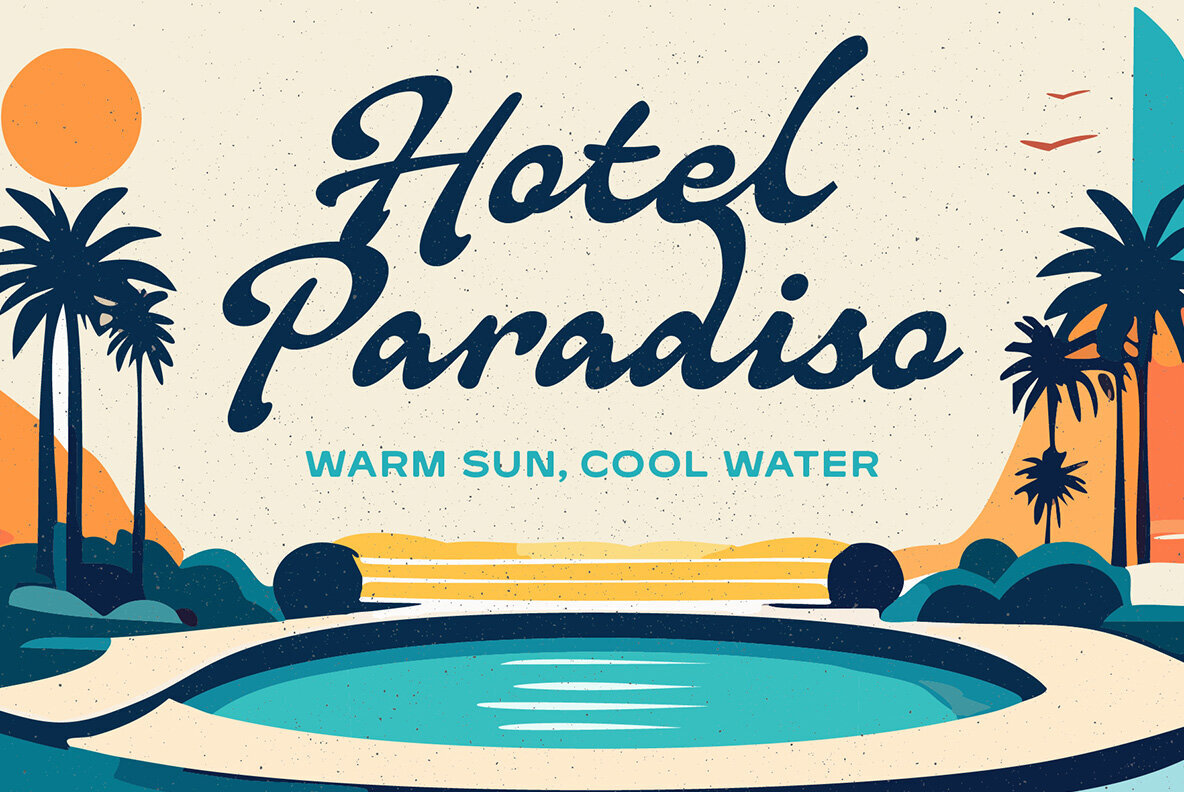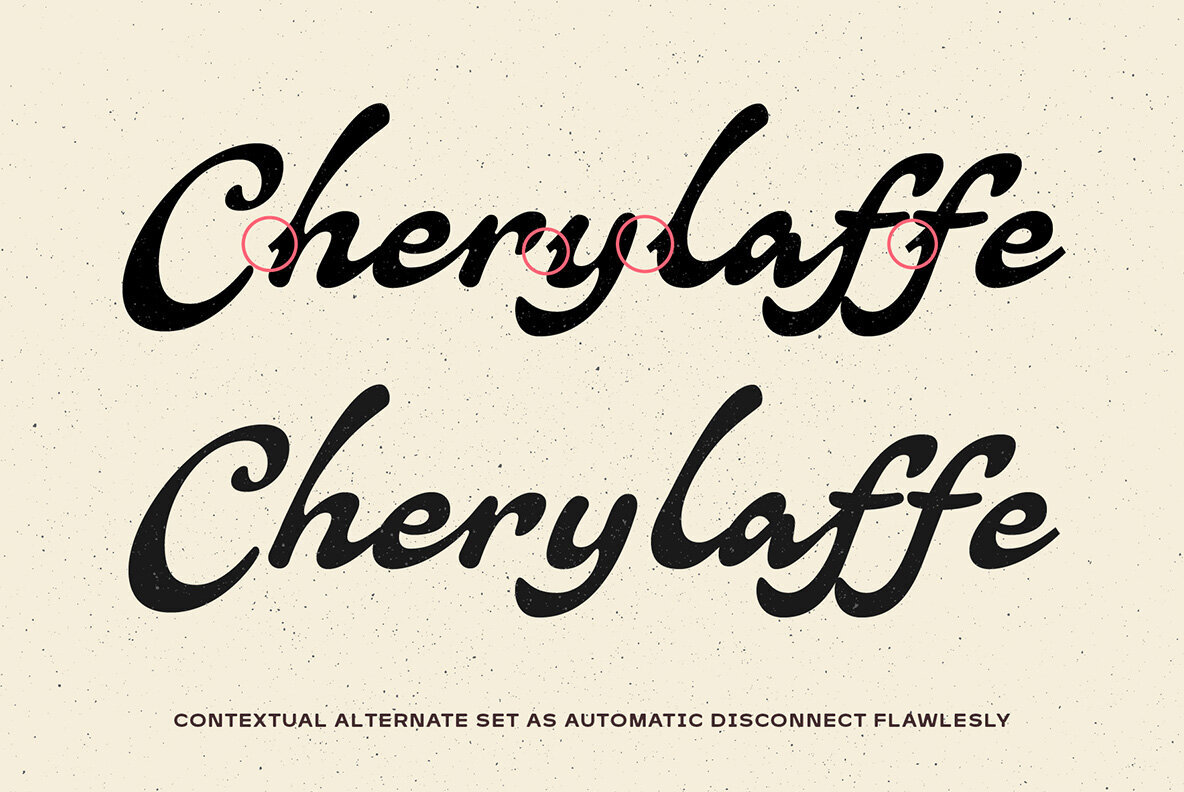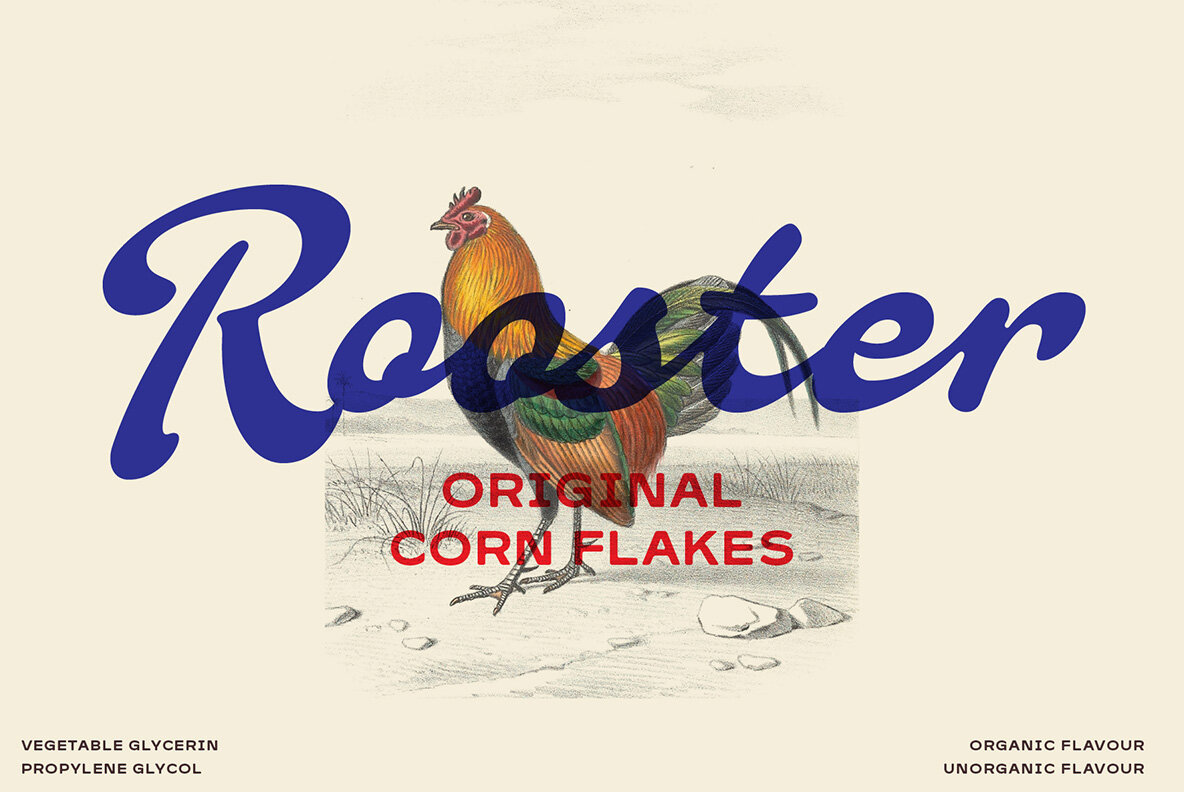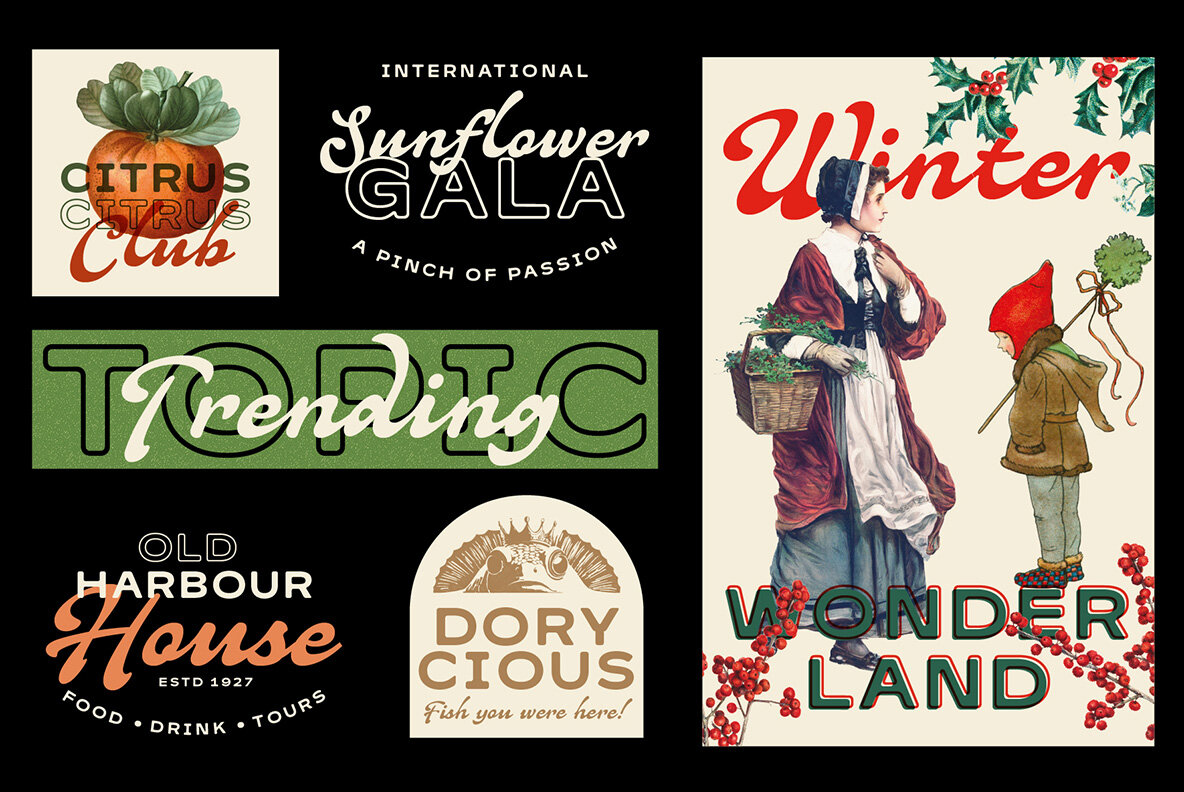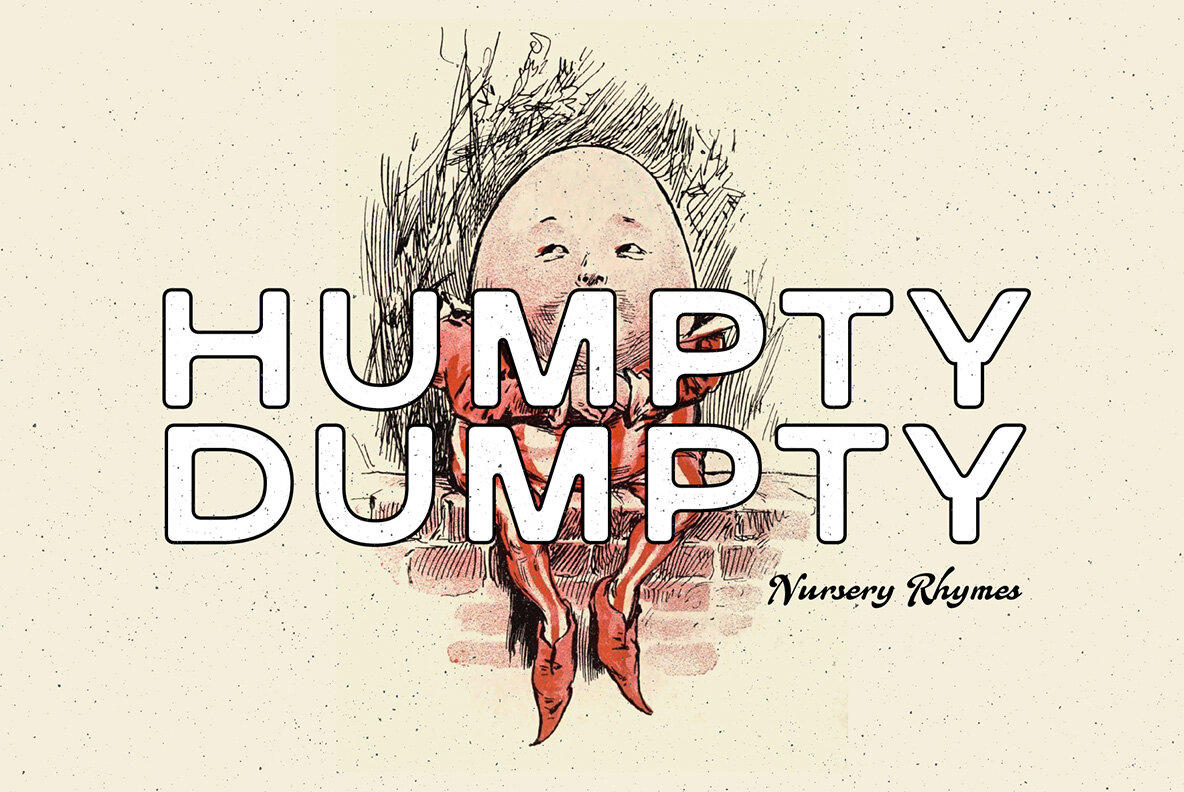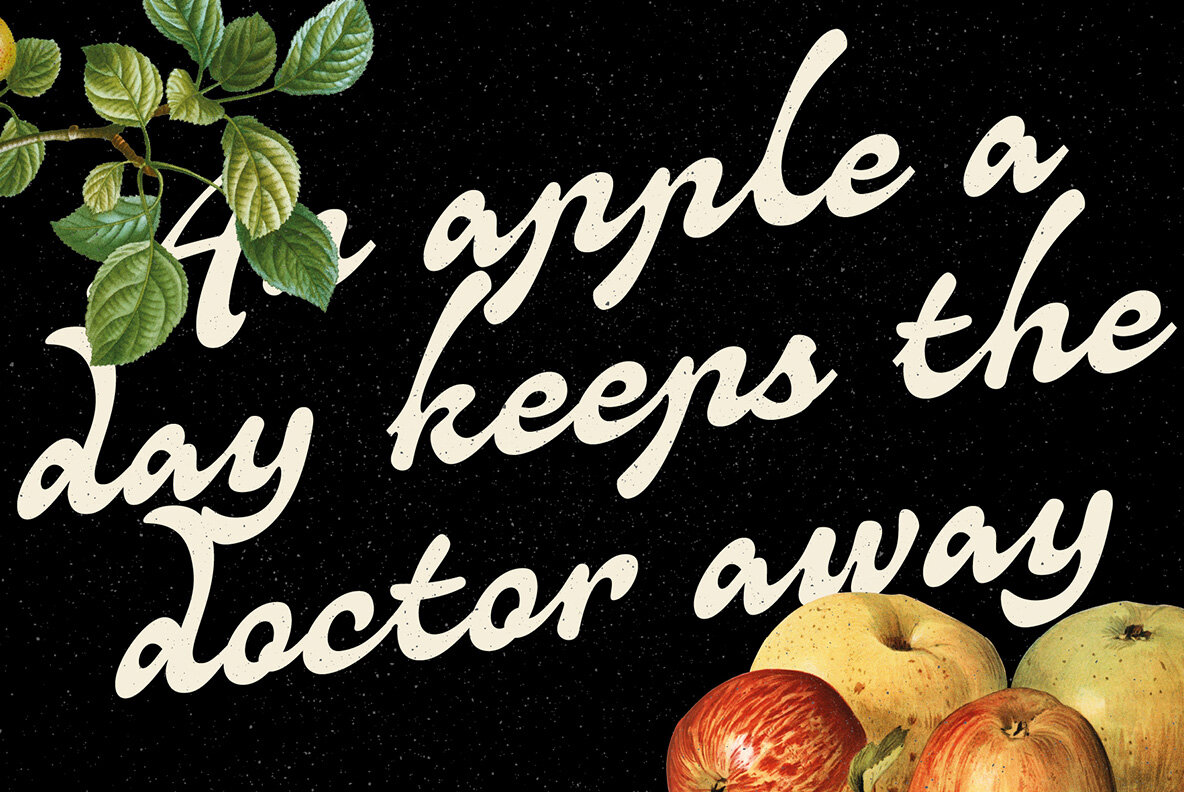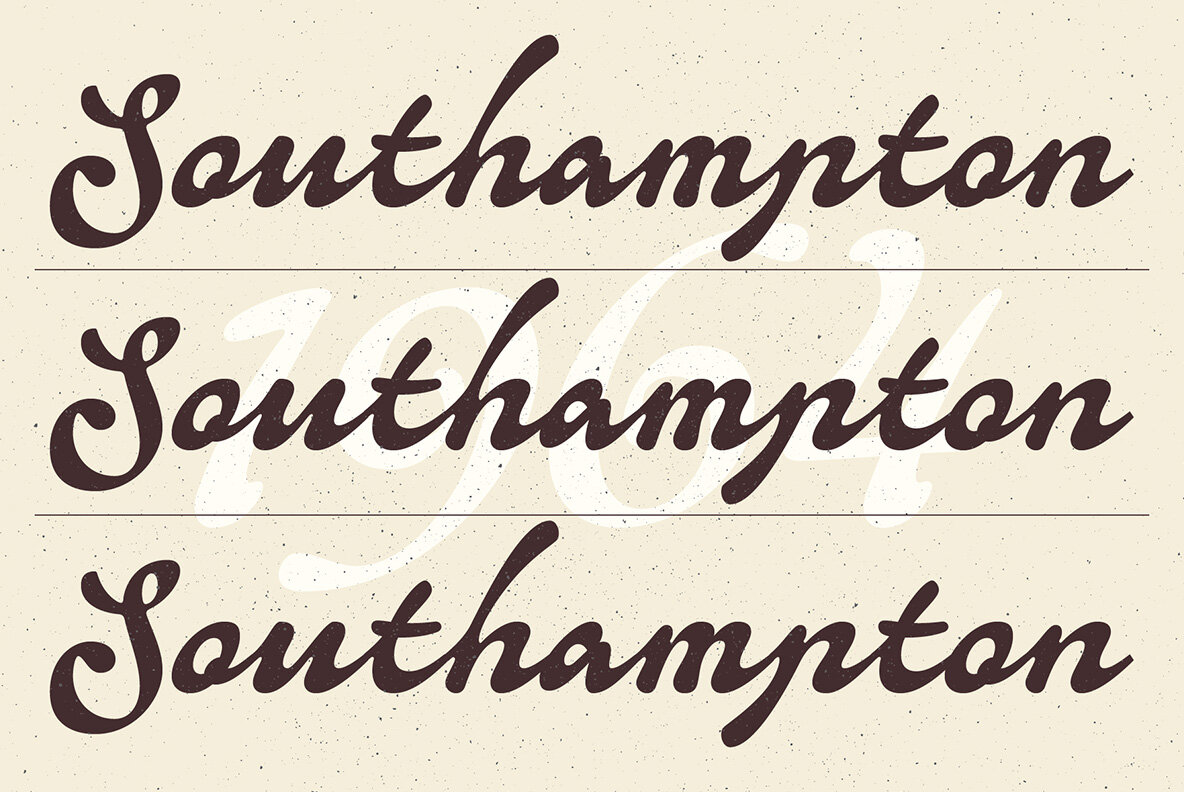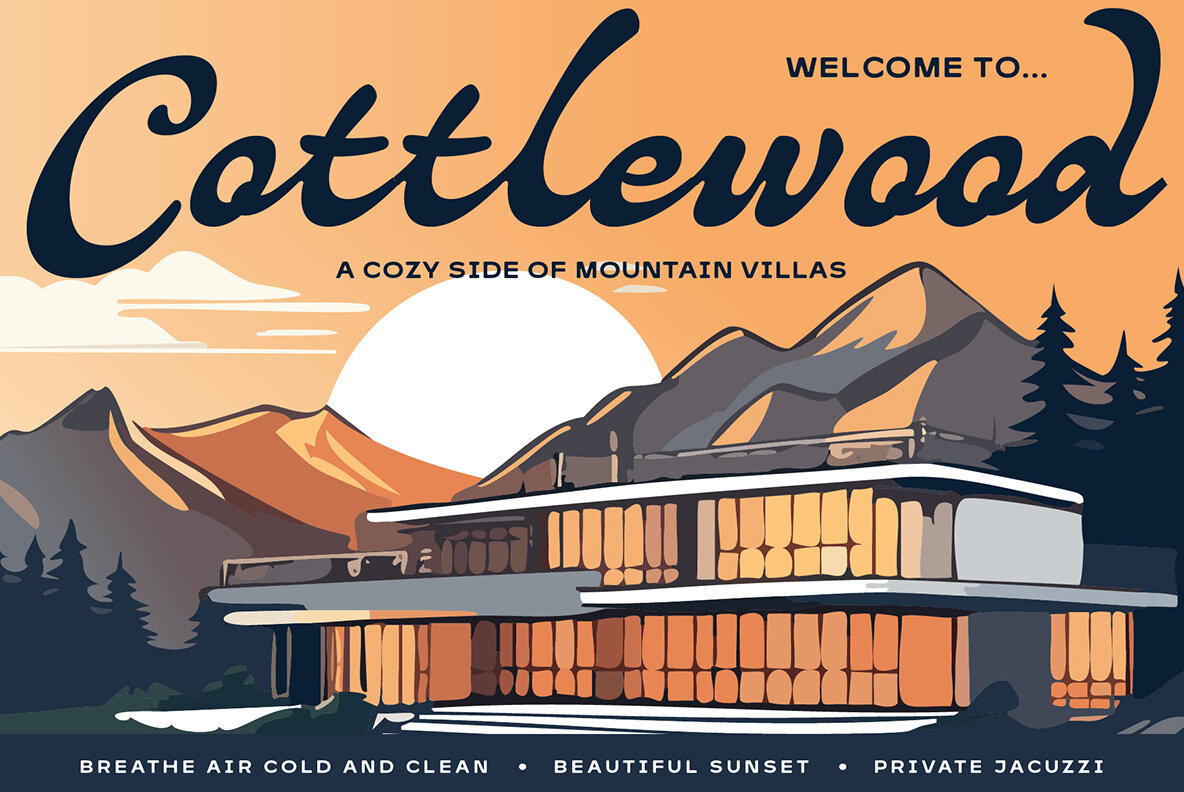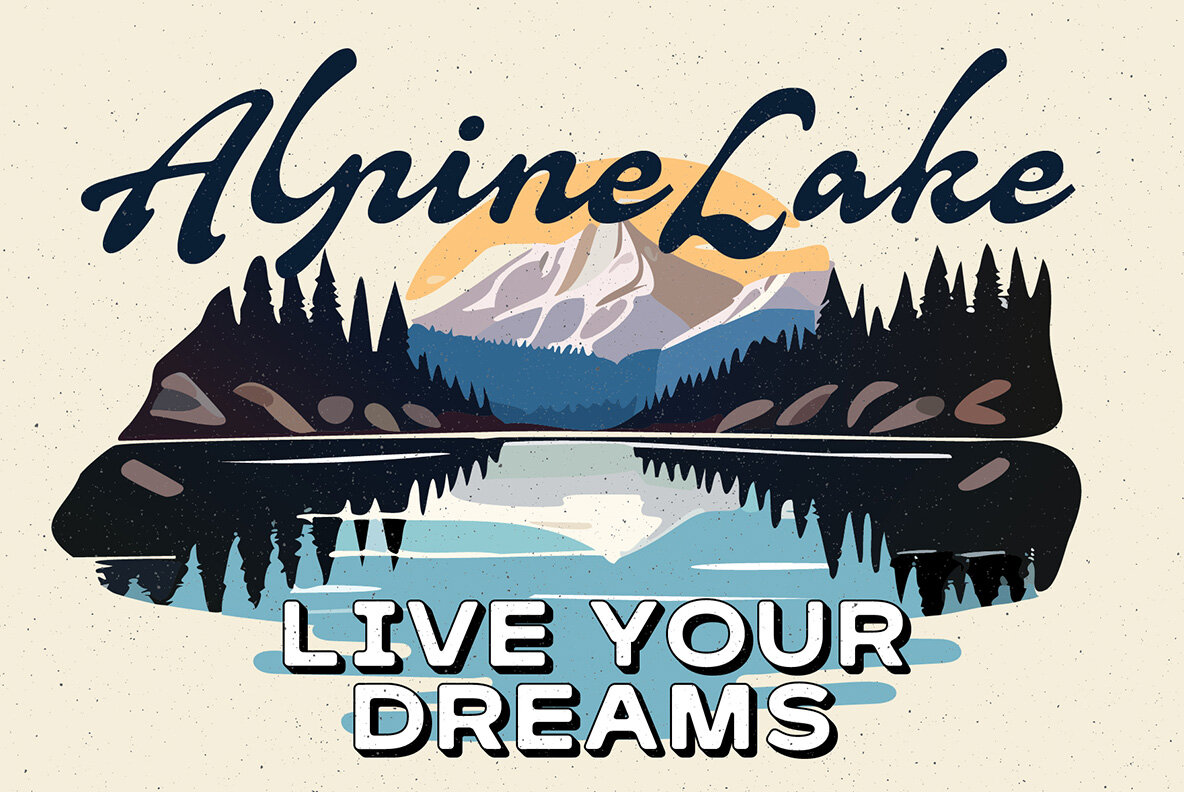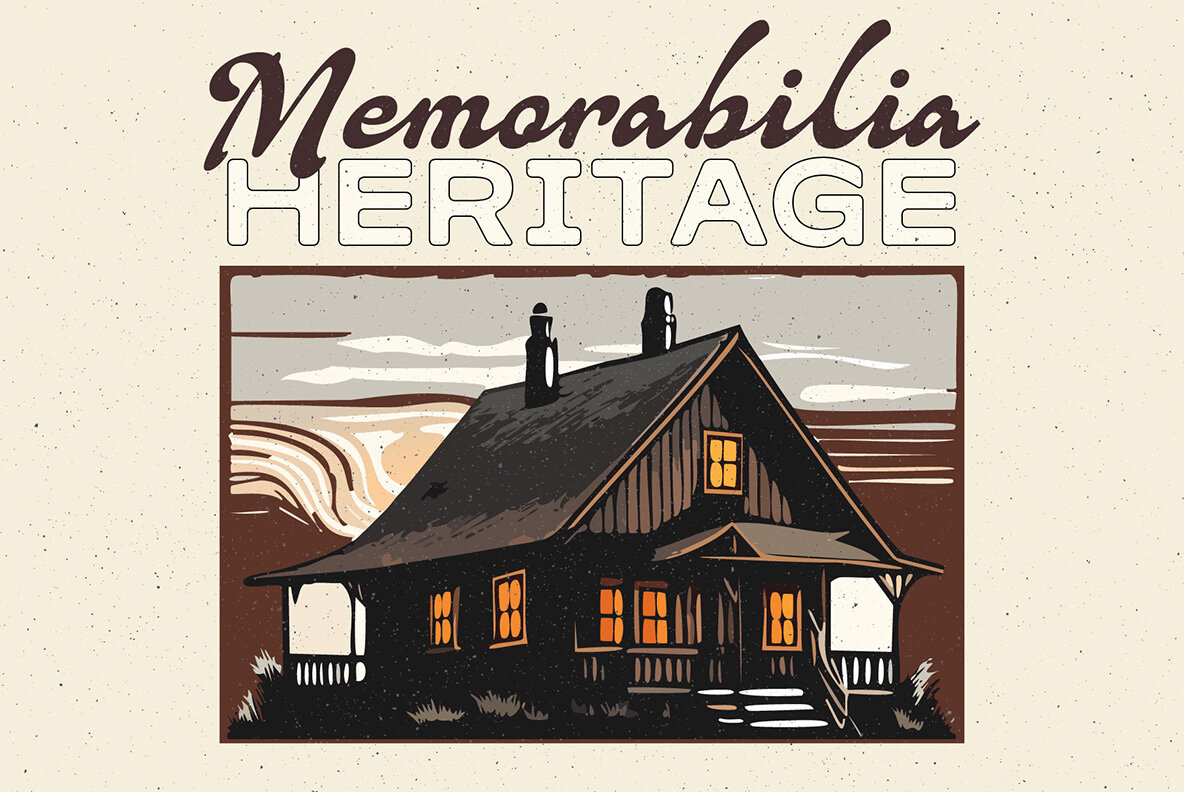
Quiscript Quisans Font
Quisans Regular
Quiscript Regular
Quisans Outline
Introducing Quiscript and Quisans Inky Font Duo – a timeless pairing of elegance and versatility. This duo features a beautifully crafted script font alongside an all-caps sans serif, each exuding a classic, soft, and vintage charm. The script font flows with inky, hand-drawn strokes, while the sans serif boasts bold, clean lines, enhanced with an extra outline option for added depth and sophistication. Perfect for a wide range of design projects, from logos and branding to packaging and invitations, this font duo adapts effortlessly, adding a touch of nostalgia and refinement to any creation. Whether you’re aiming for a vintage aesthetic or a modern twist on classic styles, the Inky Vintage Font Duo is your go-to choice for an authentic and polished look.